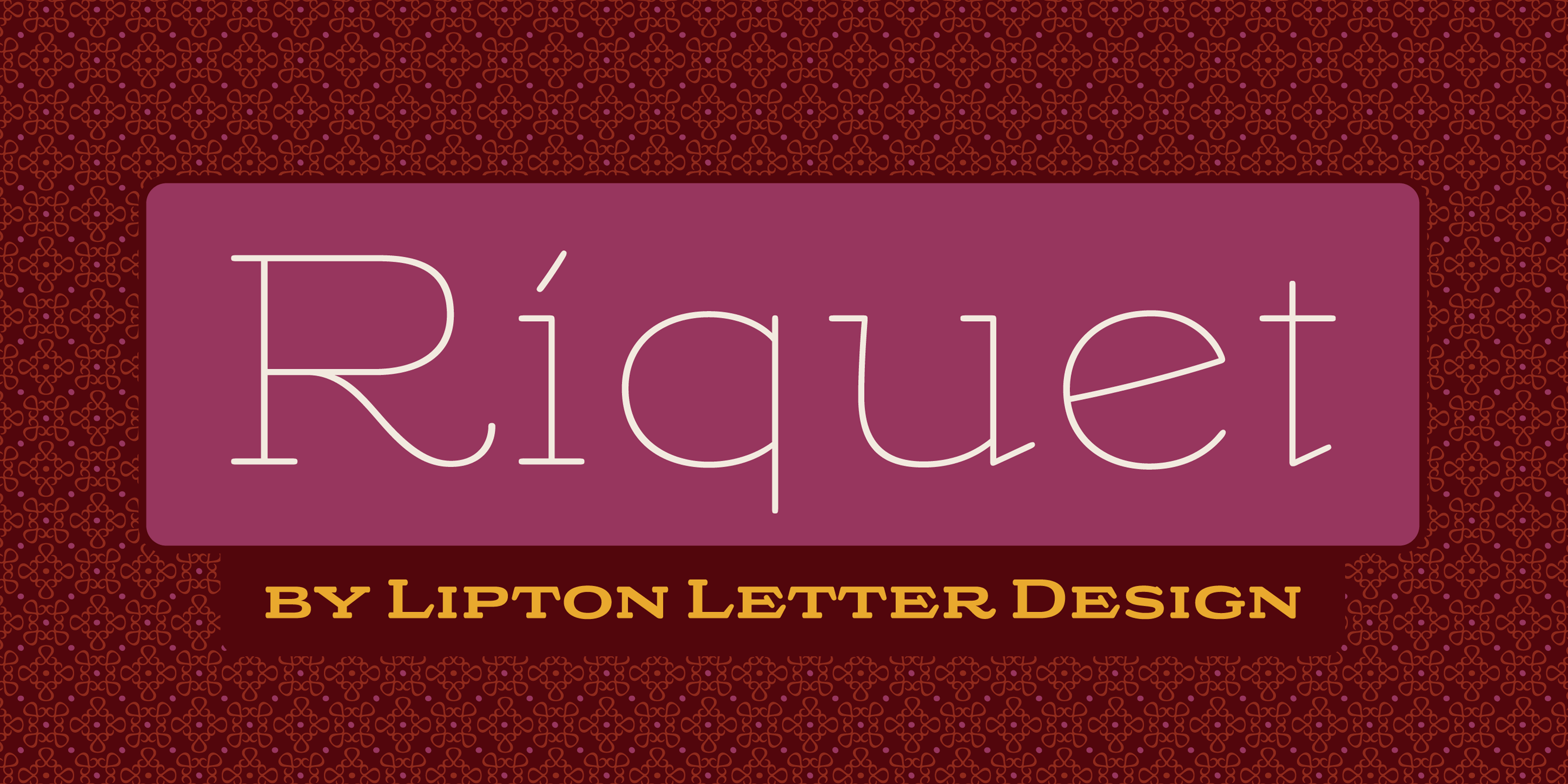
Riquet
Designed by Richard Lipton, Riquet is a display slab font family. This typeface has six styles and was published by Lipton Letter Design.
In the nineteen-twenties and early thirties, all display typography flourished in Europe. This was especially true in Germany, where poster design set a high creative standard, stimulating the design of a fantastic group of dramatic display letterforms. Richard Lipton designed Riquet after being inspired by a handful of freehand capital and lowercase letters on posters designed by lettering and poster artist Ludwig Hohlwein. He expanded this small group of display letterforms into a variable family with a weight axis. Riquet is a low contrast,  delightfully casual typeface with 6 weights and the perfect selection of alternates. All of which gives an expressive look of precisely inked letters perfect for any packaging or branding project.